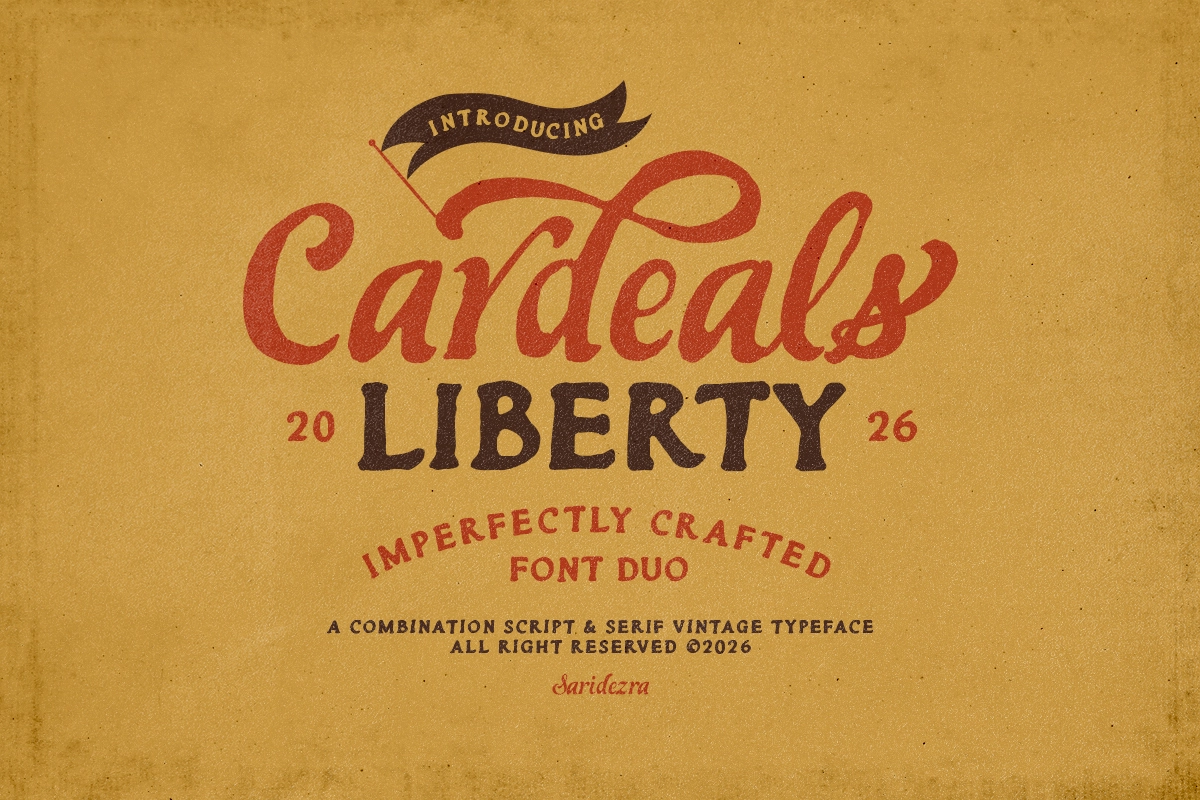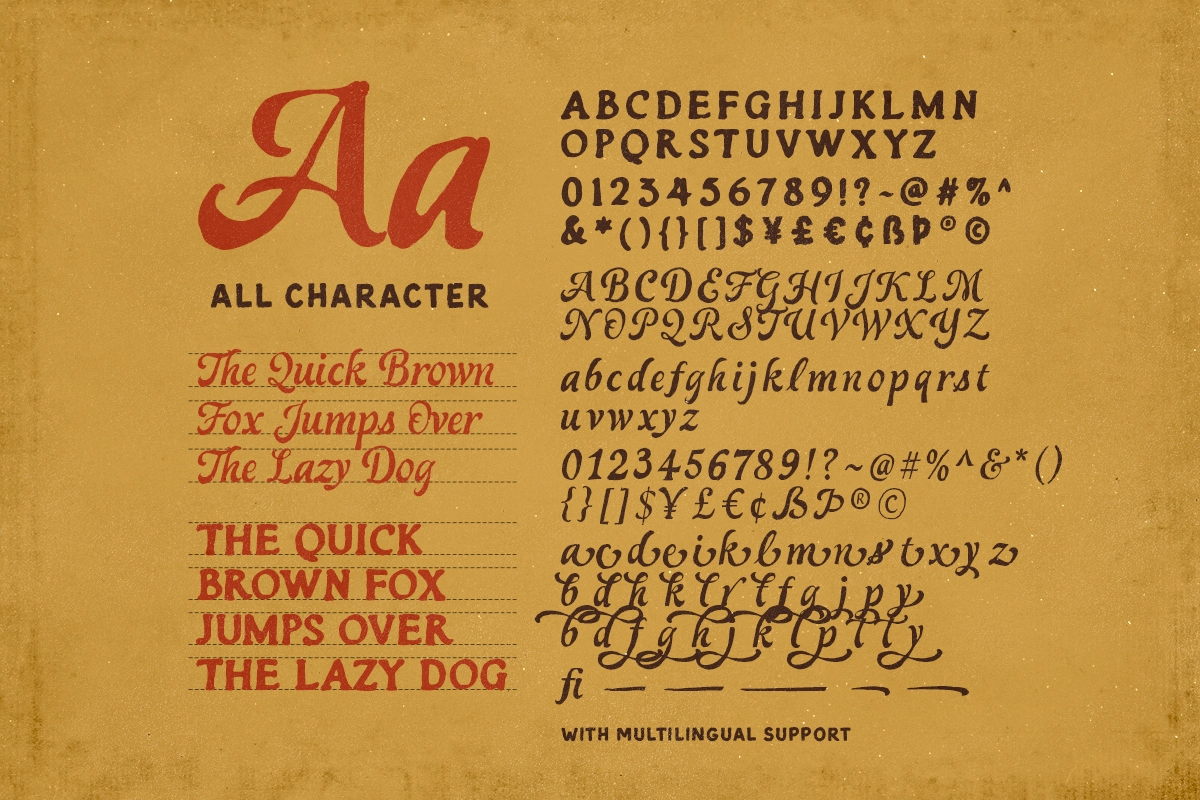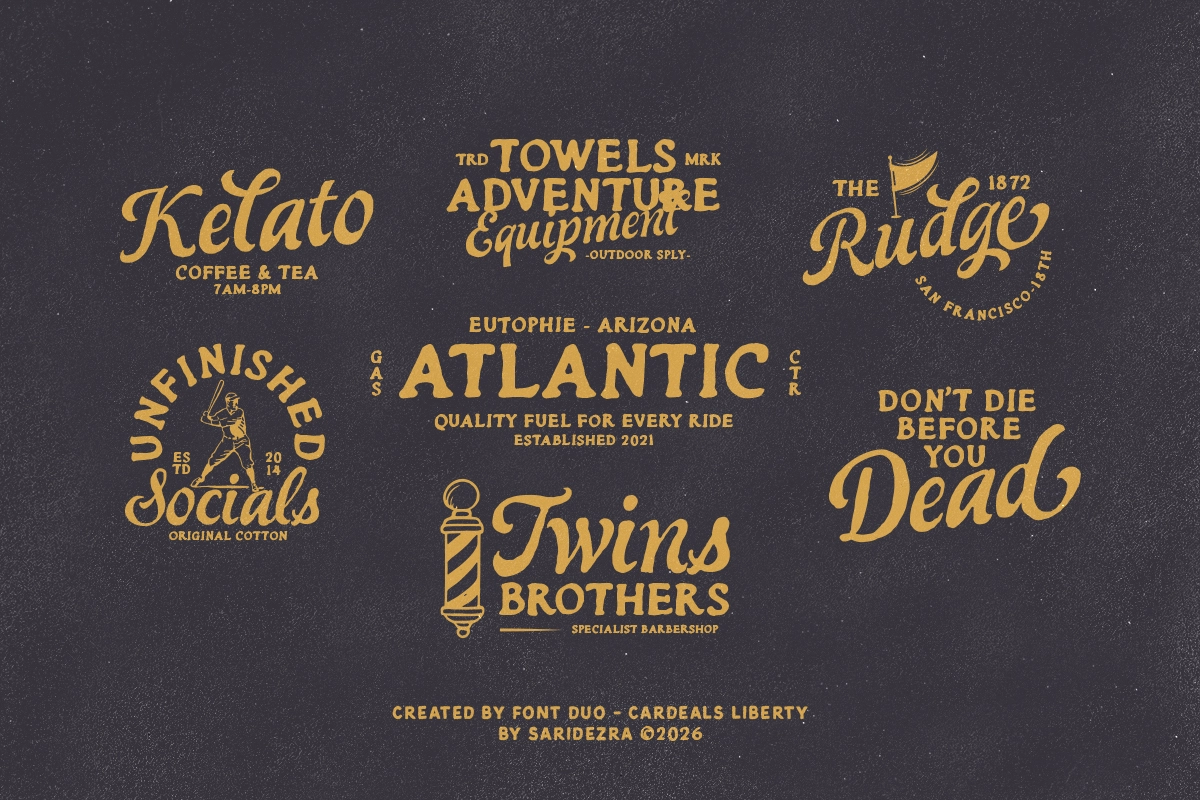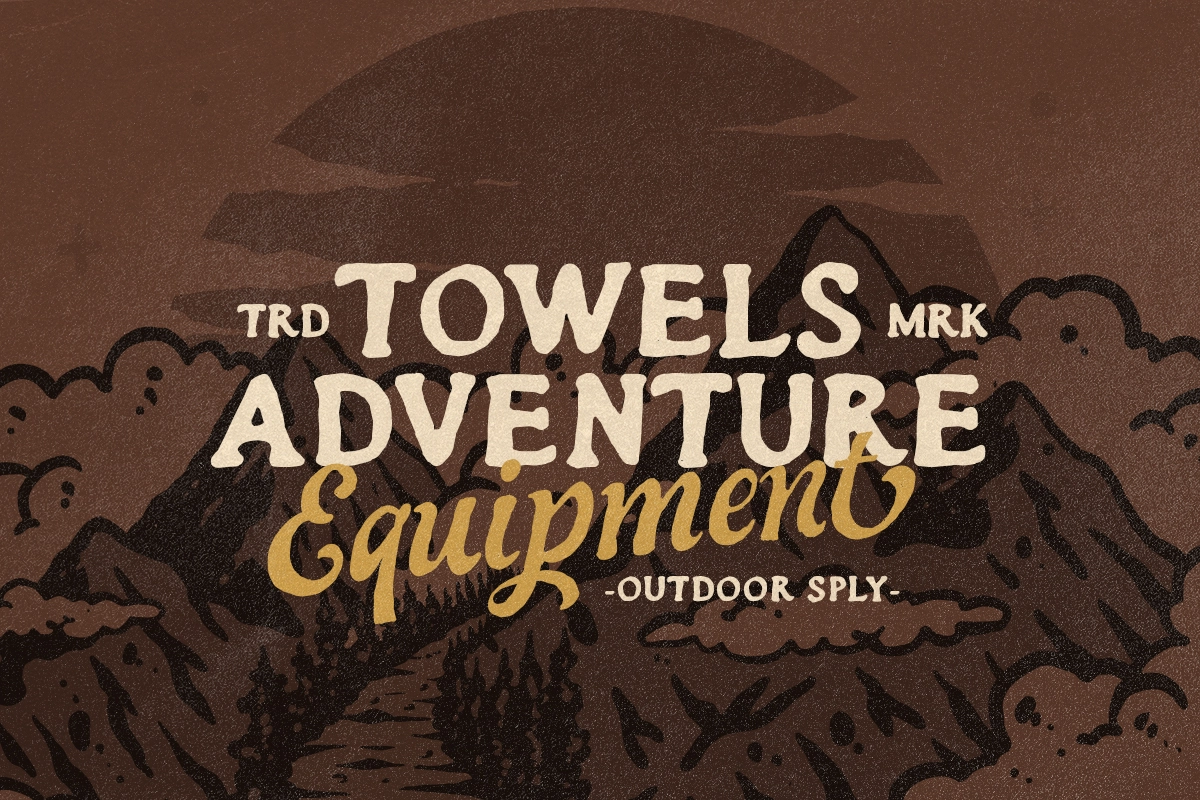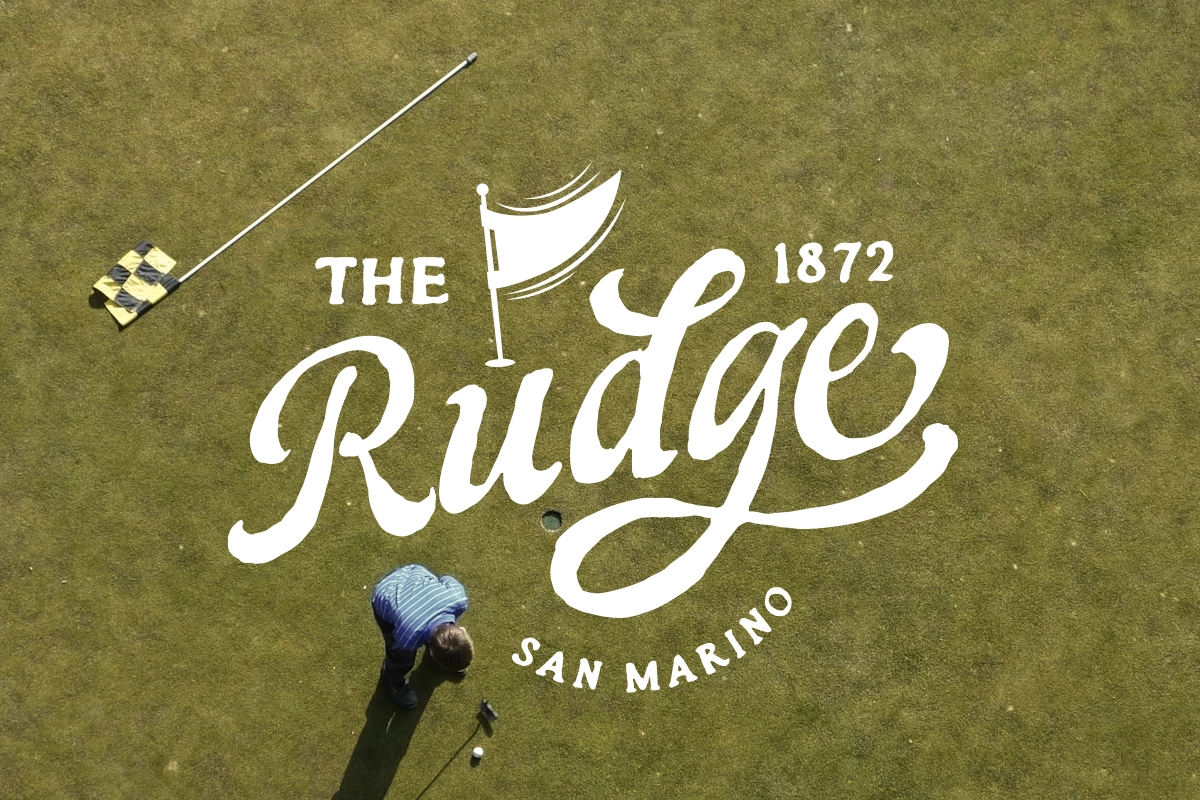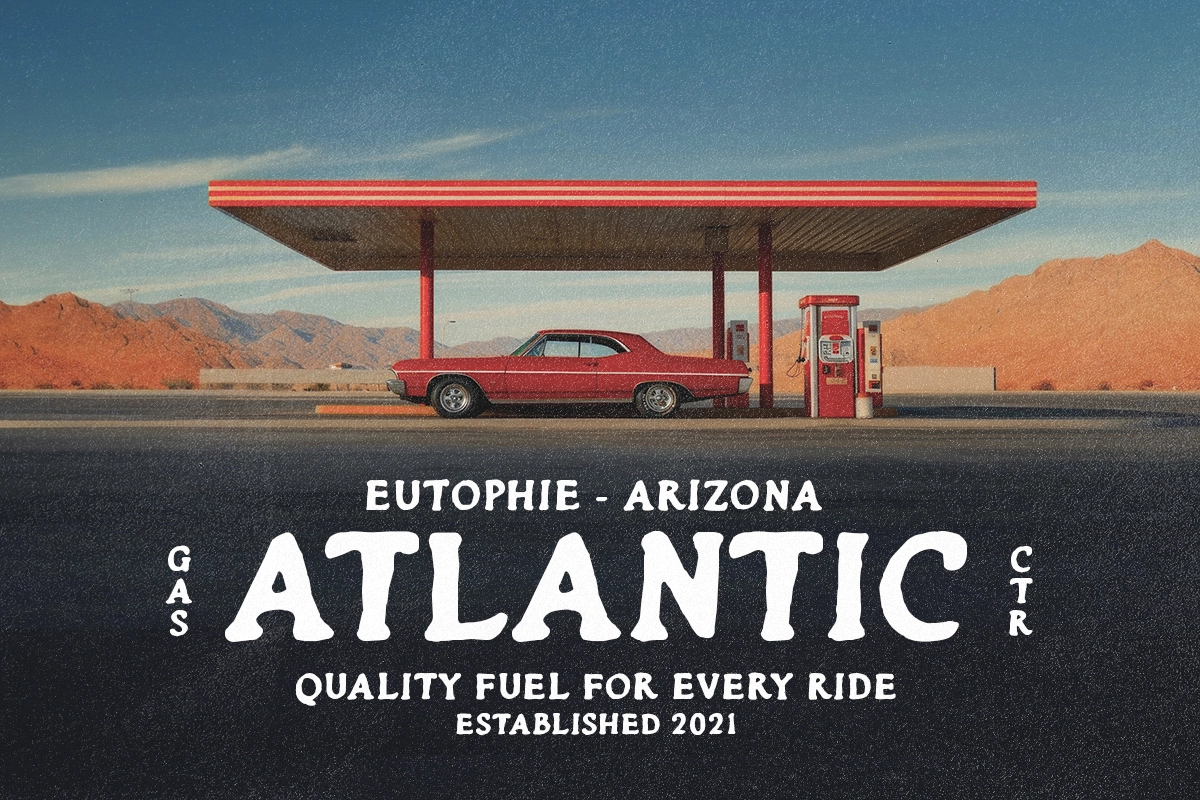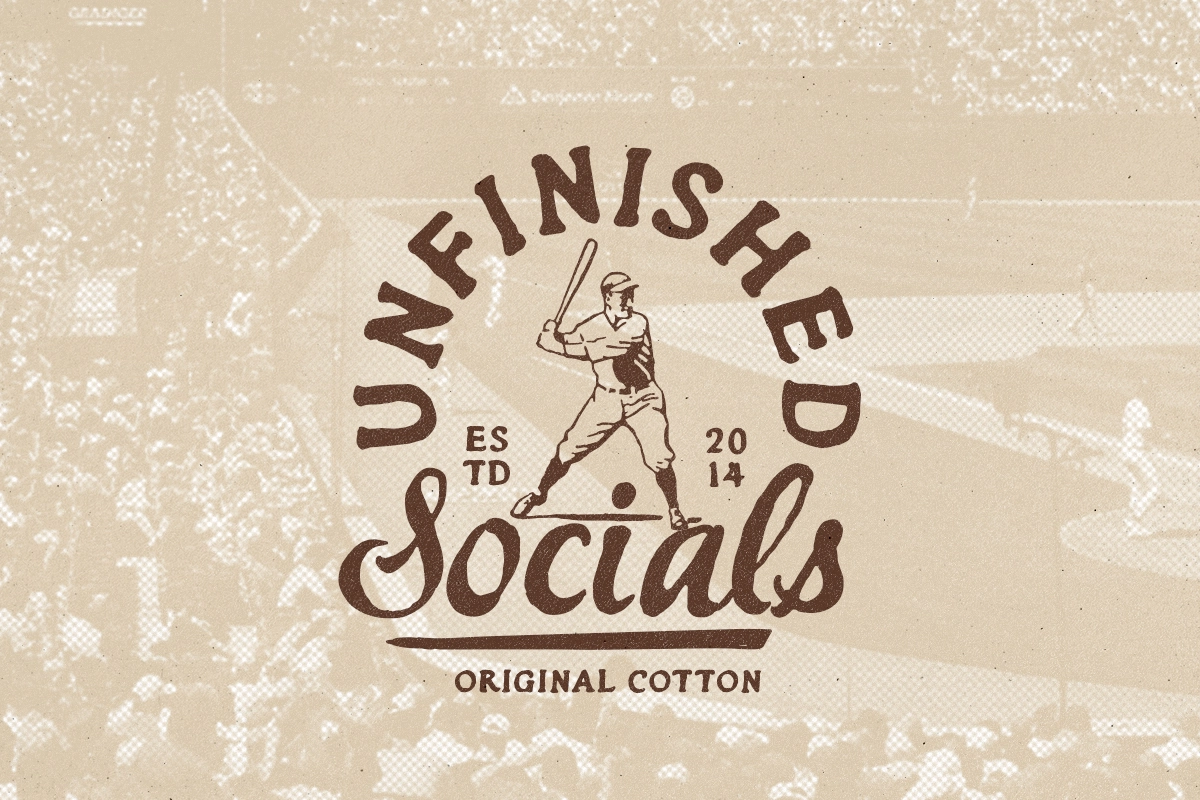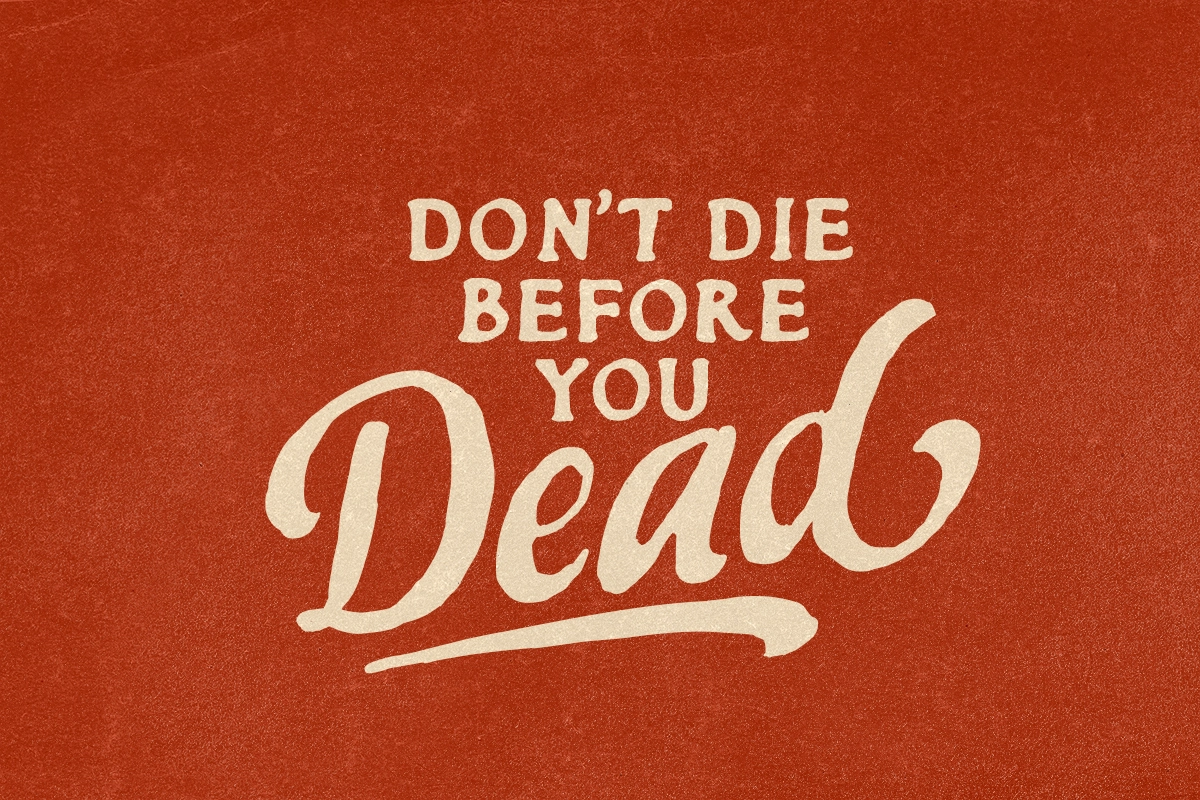
Cardeals - Handwritten Vintage Font Duo
This handwritten font duo pairs a rough serif with a sweeping script, giving logos and headlines a hand-painted vintage look . The serif has chunky, uneven edges, while the script brings long curves, alternates, and underlines for badge-style compositions with a worn print finish.
Use Cardeals for outdoor branding, apparel graphics, cafe logos, packaging, posters, quote designs, travel labels, garage signage, editorial titles, brewery identities, merch, invitations, social media artwork, and more. The two styles work well together for lockups that need character, contrast, and a little old-roadside grit.
• 2 styles: Serif, Script
• Alternates